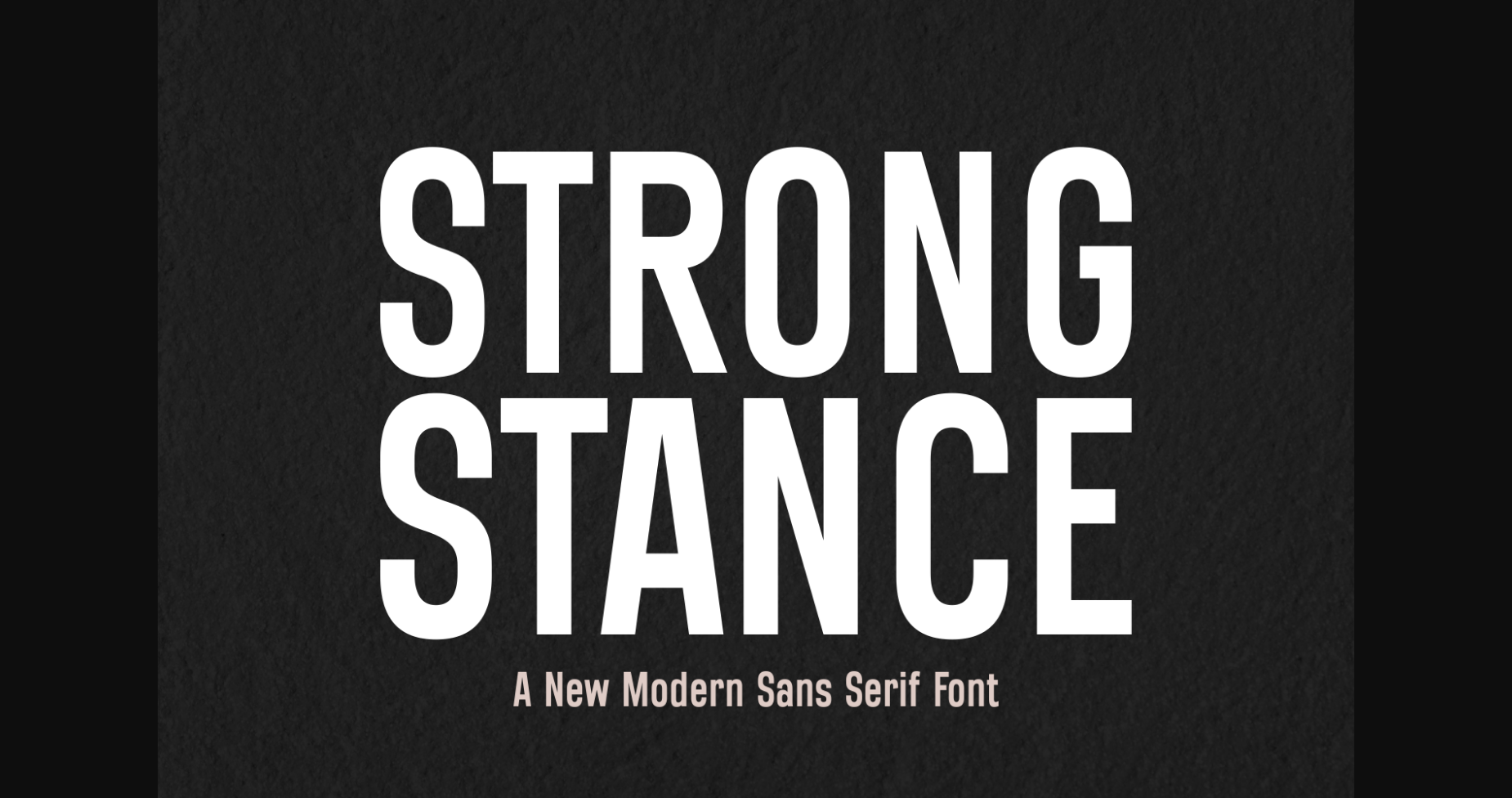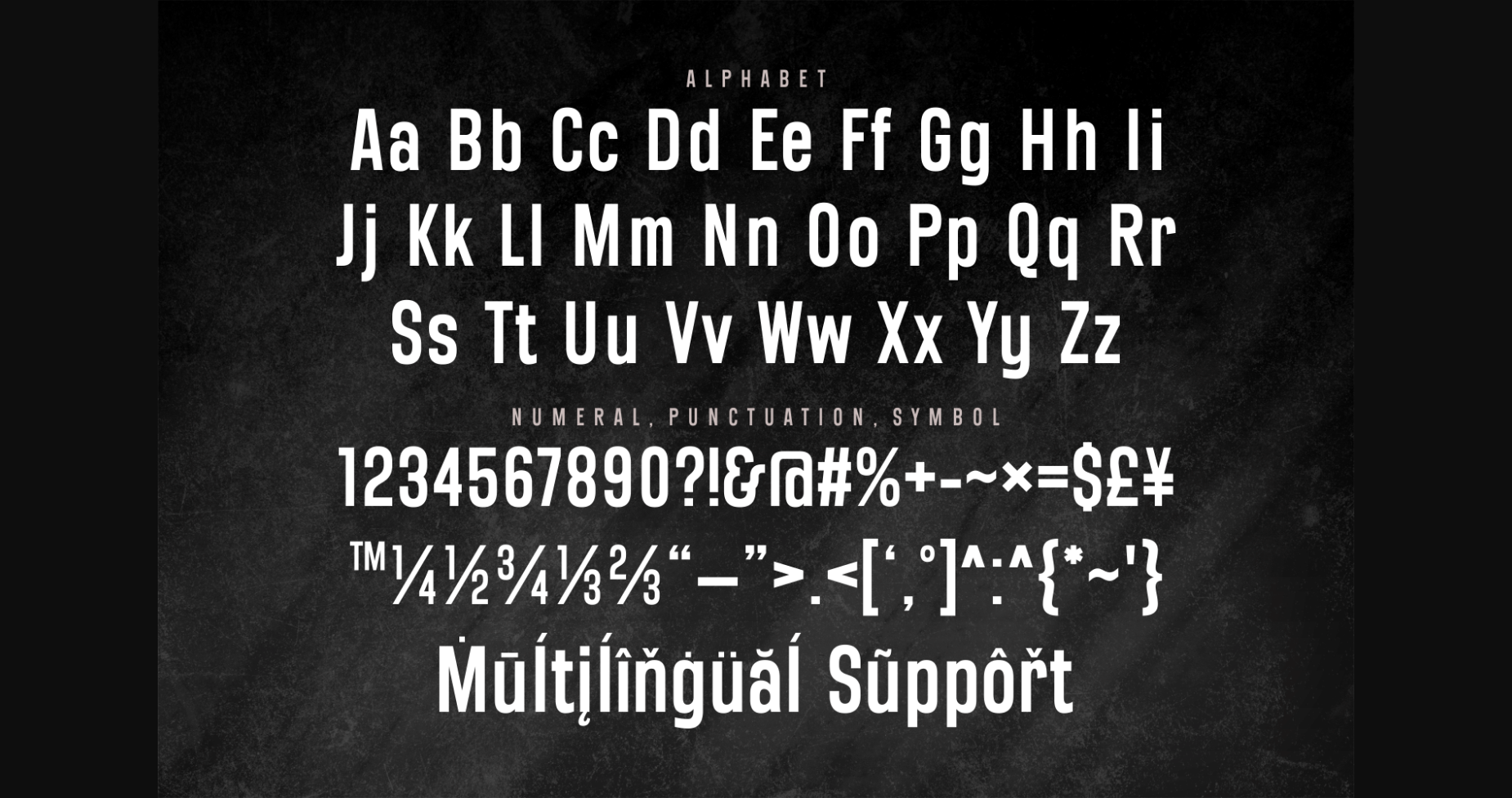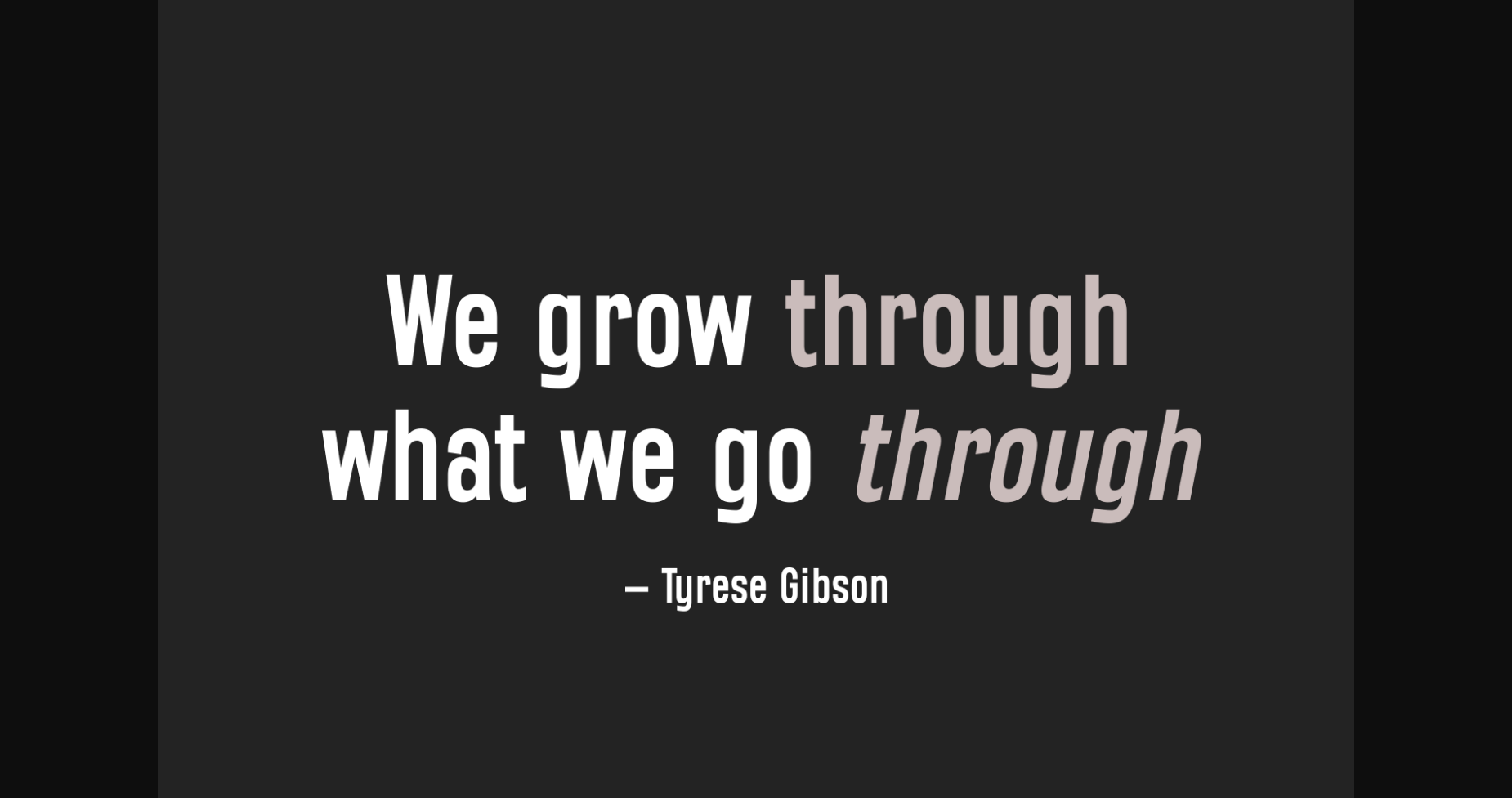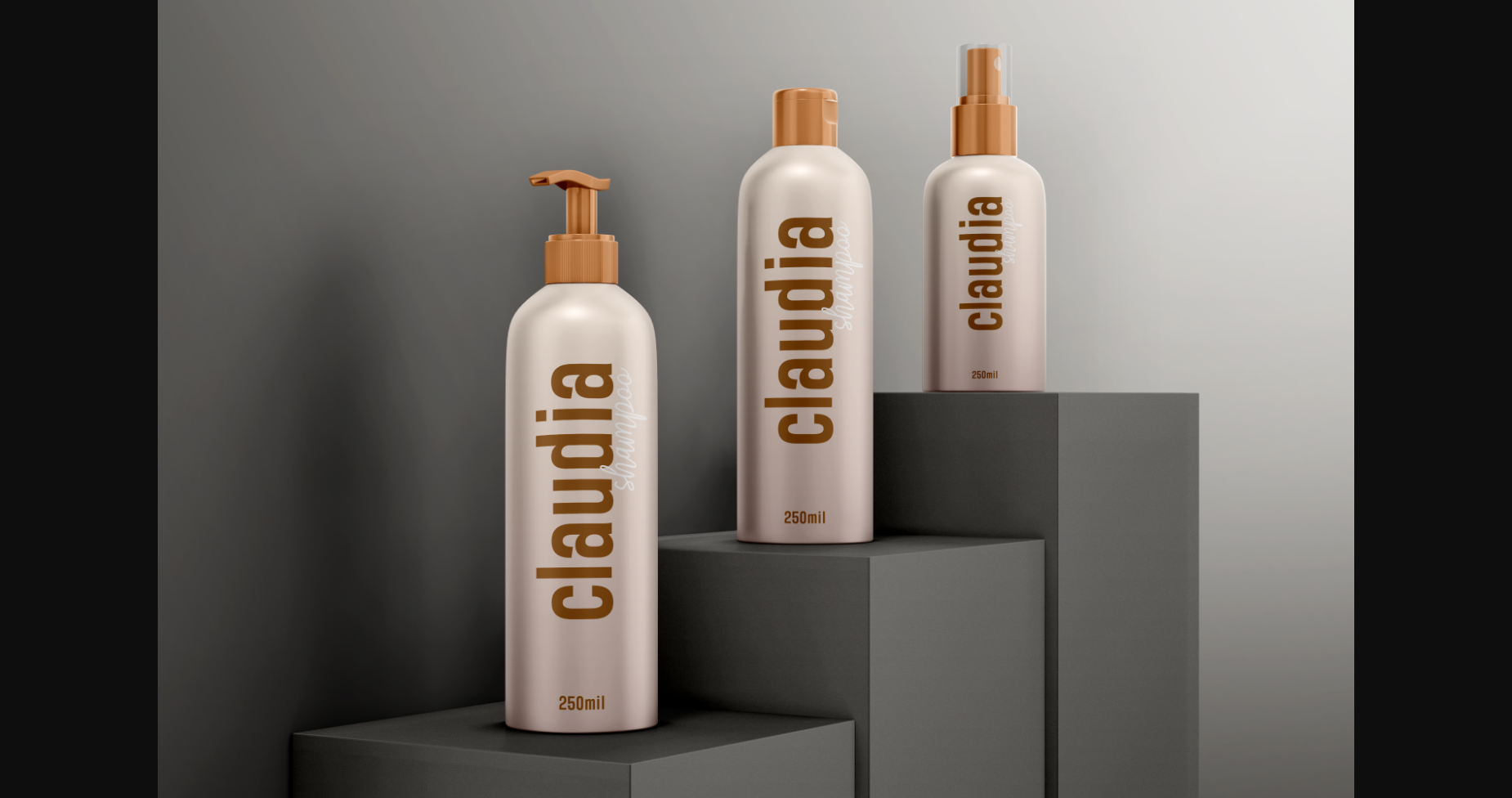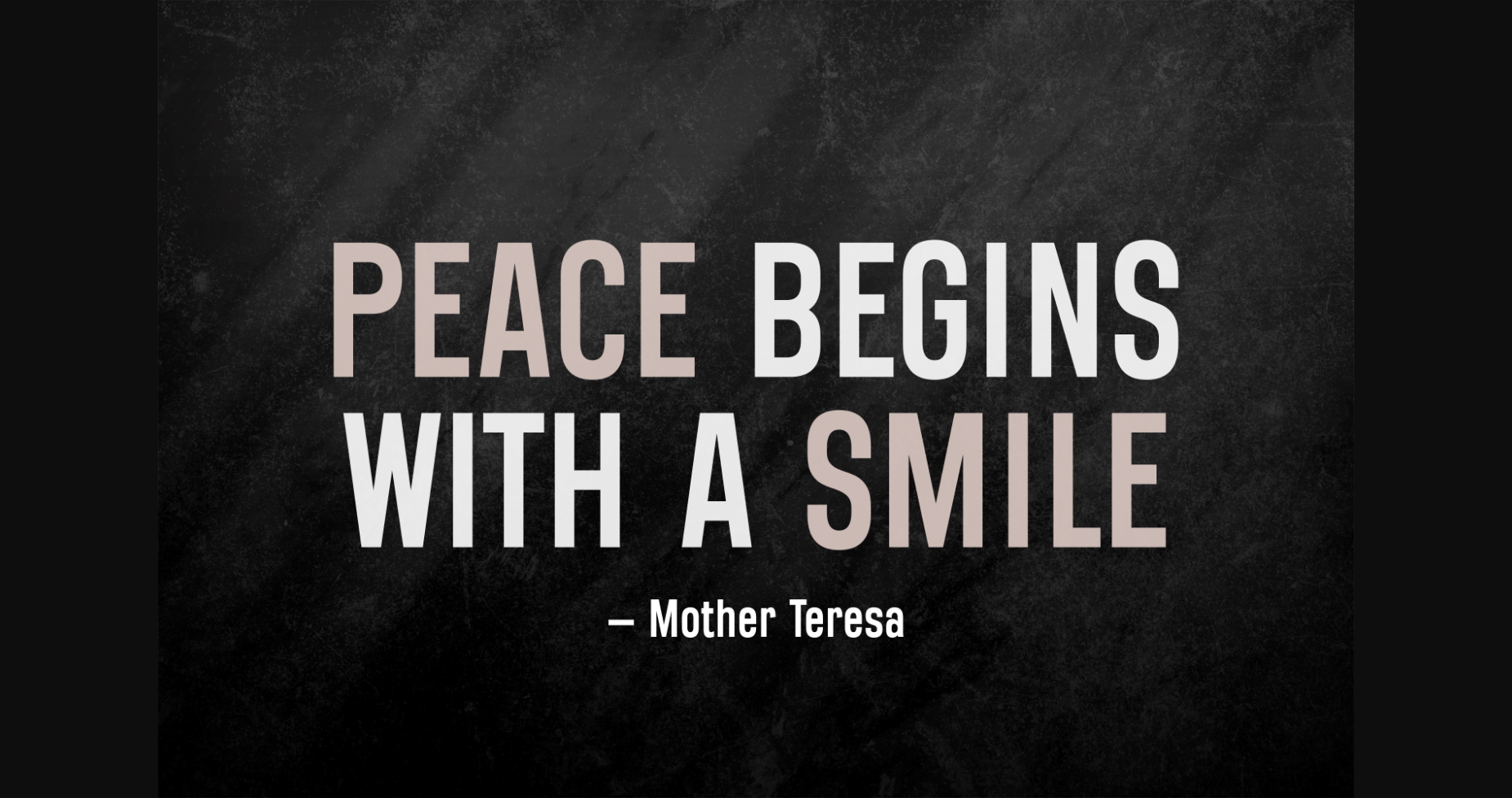
About Strong Stance Font
Strong Stance is a bold and assertive sans serif font. No matter the topic, this font will be an
incredible asset to your fonts’ library, as it has the potential to elevate any creation.